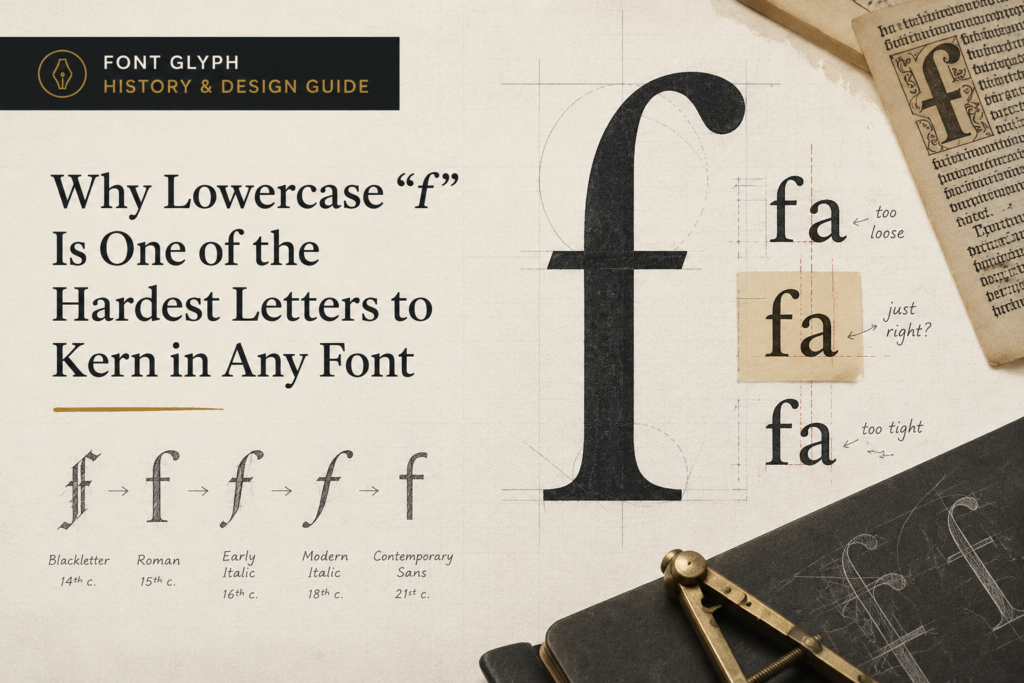
Open any font’s kerning table and there’s a good chance “f” has more override pairs than almost any other letter. That crossbar sticking out to the right is gorgeous in isolation and a nightmare next to certain letters. This is the sixth entry in our glyph series, following “a” through “e.” Today, we’re breaking down the letter that gives type designers the most spacing headaches.
A Short History of “f”
“f” has a slightly unusual origin story compared to most of the alphabet. It traces back to the Phoenician letter waw, which represented a sound closer to “w” or “v” and is thought to have depicted a hook or peg. That single Phoenician letter actually ended up splitting into three separate letters as it moved through different alphabets: “f,” “u,” and “v” (and eventually “w” too) all descend from the same ancestral shape, which is why these letters still look vaguely related and historically got tangled up with each other well into the medieval period.
The Greeks adopted a version of the letter as digamma, used for a “w” sound, but it eventually fell out of standard Greek use. The Etruscans, however, kept a version of it alive and used it for an “f” sound, and the Romans borrowed that usage directly, which is how Latin ended up with “F” representing the sound it does today.
Roman capital “F” looked close to what we use now: a vertical stroke with two horizontal arms branching off to the right. Lowercase “f,” like most lowercase letters, didn’t fully form until scribes writing quickly by hand simplified the capital during the early medieval period. Interestingly, “f” is one of the few lowercase letters that kept a descender in some scripts — extending slightly below the baseline — a feature that has mostly disappeared from modern text fonts but still survives in some blackletter and calligraphic display typefaces.
Anatomy of a Lowercase “f”
Lowercase “f” is built around an ascender, the tall vertical stroke that rises above the x-height, topped with a hook or curved terminal, and a crossbar that cuts across the stem partway down, often extending out to the right past the stem itself.
That extending crossbar is the letter’s defining — and most problematic — feature. Because it sticks out past the vertical stroke, “f” can collide visually with whatever letter comes next, especially rounded letters like “i” or ascenders like “l.” This is why “fi” and “fl” are two of the most famous letter combinations in all of typography: they’re so prone to visual collision that type designers invented dedicated ligatures — single combined glyphs — specifically to solve the problem, merging “f” and the following letter into one smoothly connected shape.
The top hook of “f” also varies quite a bit between typefaces. Some designs curve it into a tight, closed loop; others leave it open and straight, closer to a simple flag shape. This hook is one of the more expressive, personality-driven parts of the letter, since it doesn’t carry the same legibility constraints as the crossbar or stem.
“f” shares its ascender height with “b,” “d,” “h,” “k,” and “l,” so its vertical proportions need to match that whole family precisely, even though its top treatment and crossbar make it look quite different from any of them at a glance.
Designing the Letter From Scratch
Type designers typically draw “f” after the core ascending letters are settled, since its stem height and stroke weight need to match “b,” “h,” “k,” and “l” exactly. From there, most of the actual design work goes into the crossbar and the hook.
The crossbar’s length is the first major decision. A short crossbar that barely extends past the stem reduces collision risk with neighboring letters but can make “f” look cramped or unfinished. A longer crossbar looks more balanced and traditional but multiplies the kerning problems the designer will need to solve later. Most designers land somewhere in the middle, then build dedicated “fi” and “fl” ligatures specifically to handle the tightest collision cases, rather than trying to solve the problem with spacing adjustments alone.
The hook comes next, and this is where a lot of stylistic identity gets built in. A tighter, more closed hook feels more classical and serif-like; an open, flag-like hook feels more modern or geometric. Script and handwriting-style fonts often extend the hook into a flourish or connecting stroke, since “f” frequently needs to link smoothly into whatever letter follows it in cursive designs.
Once the shape is finalized, extensive kerning work follows — “f” typically needs specific spacing adjustments against nearly every lowercase letter with an ascender or a rounded top, since the extended crossbar creates more potential collision points than almost any other letter in the alphabet.
Unique Facts About “f”
“f” and “s” hold a strange historical relationship: in some 17th- and 18th-century typefaces, a “long s” (ſ) was used in place of a regular lowercase “s” in certain positions within a word, and it looked remarkably similar to “f,” minus the full crossbar. This is why old printed texts sometimes look, to modern readers, like they’re full of typos where “s” appears to have been swapped for “f.”
Summary
Lowercase “f” is a letter defined by tension — between a hook that carries most of its stylistic personality and a crossbar that causes more spacing problems than almost any other letter in the alphabet. Its tangled family history with “u,” “v,” and “w,” its long-running rivalry with the historic “long s,” and its starring role in the invention of the “fi” and “fl” ligatures make it one of the more quietly dramatic letters in all of typography.